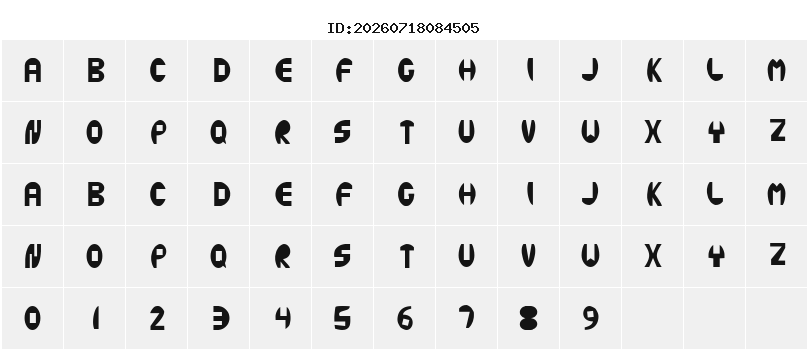
Chance Preview
• Font Name: Chance
• Full Font Name: Chance
About Chance.ttf
Chance.ttf is a modern, elegant sans-serif font designed for ultimate readability and visual harmony. Perfect for branding, headlines, web design, and print materials.